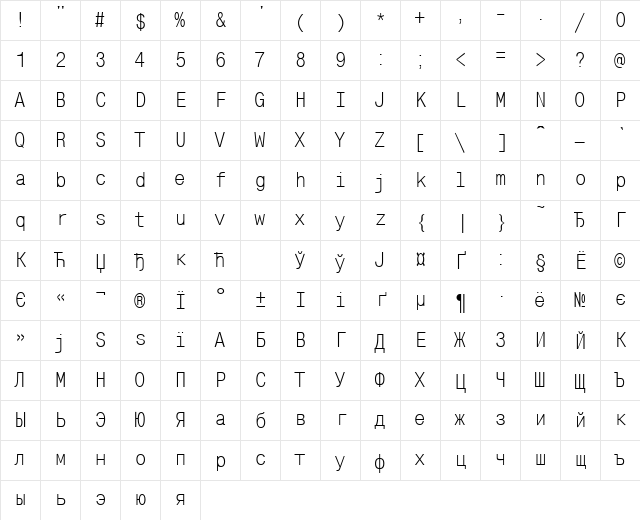
MonoCondensed Cyrillic@
Style: Cyrillic@
Complete MonoCondensed Cyrillic@ glyph index. Displaying only characters natively supported by MonoCondensed Cyrillic@ font.
Design Context for MonoCondensed
MonoCondensed uses fixed-width spacing throughout, giving it the structured, systematic character associated with coding environments and technical documentation.